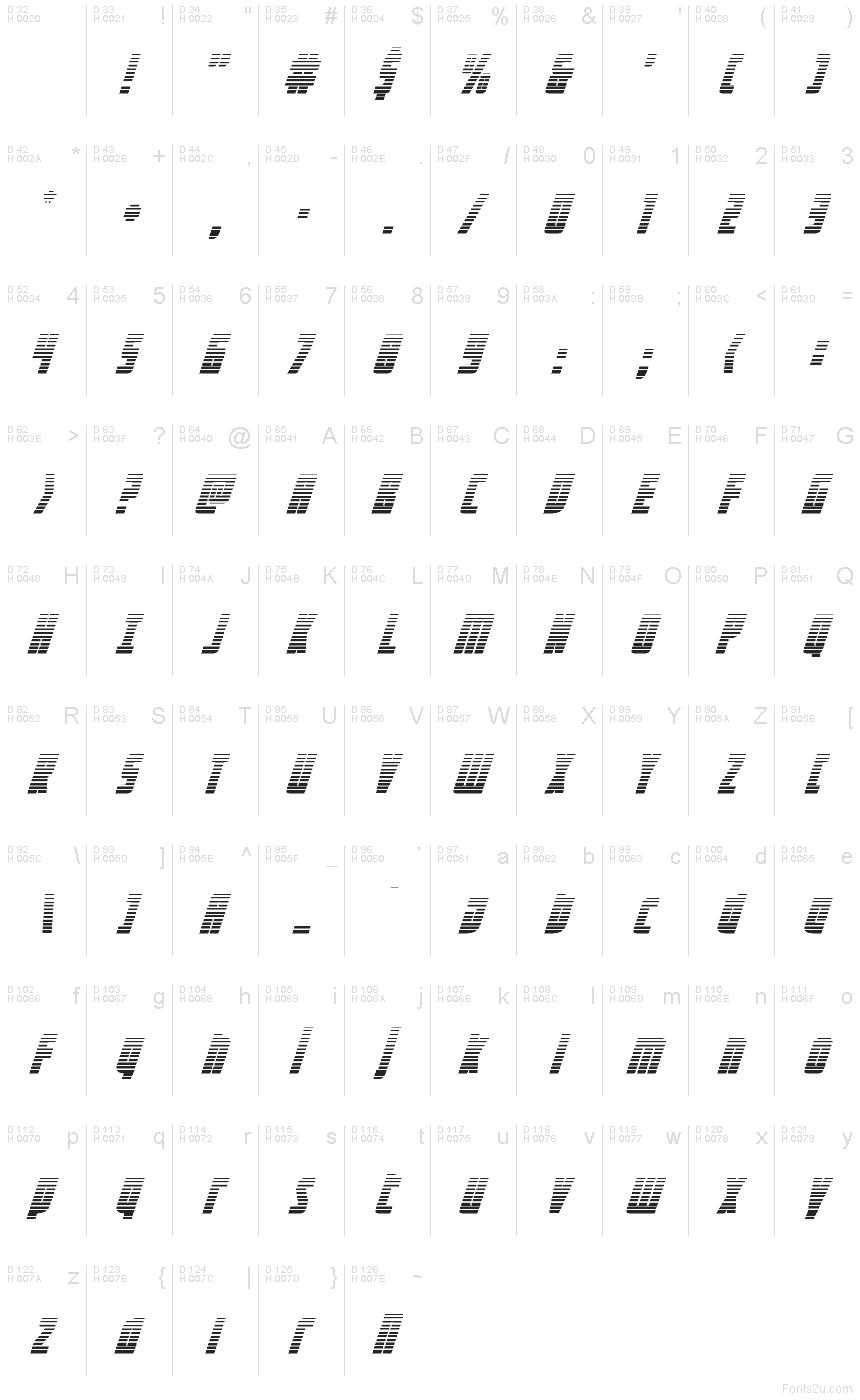
Impact Wrench Gradient Italic
Impact Wrench Gradient Italic font by Iconian Fonts is a display typeface with a futuristic style. The font features sleek and smooth characters formed mostly by horizontal lines, much like the tire marks on asphalt roads. These bold and condensed characters are not only stylish but also energetic and distinct with their visual creativity.
Use this free techno display font in technological project pitches, car branding designs, electronic product ads, game interfaces, window displays in electronic stores, modern packet designs for home gadgets or devices, futuristic sci-fi movie posters, security website design headers, and invitation cards for tech seminars or events.